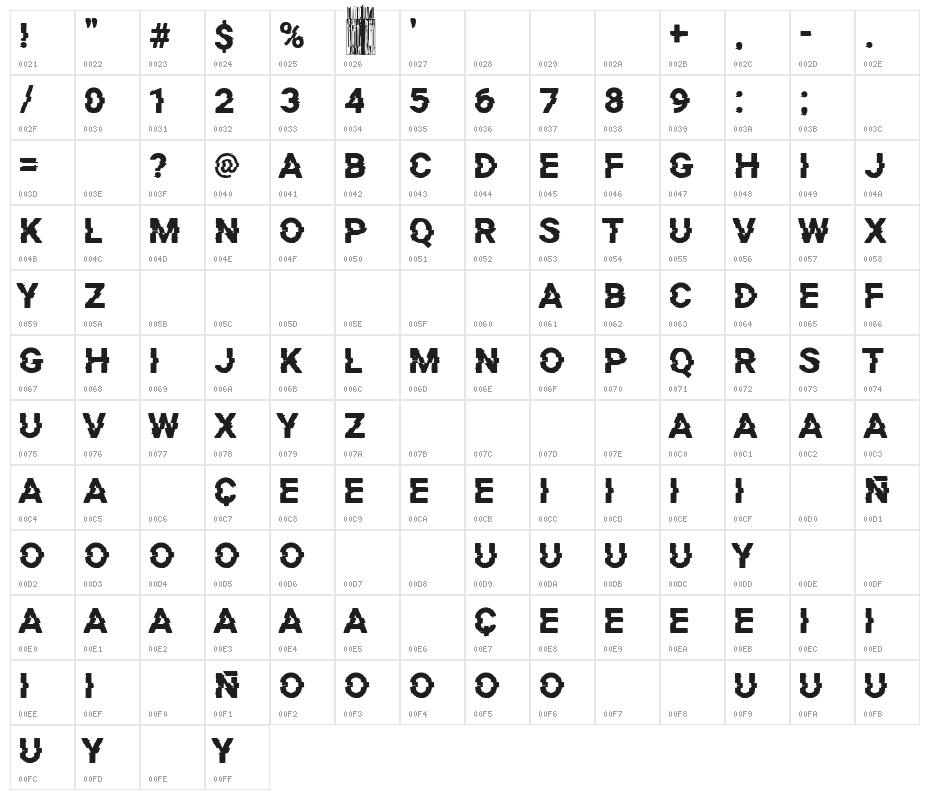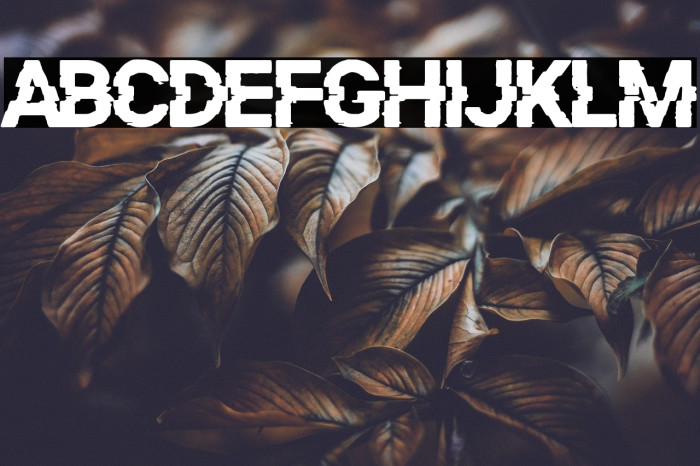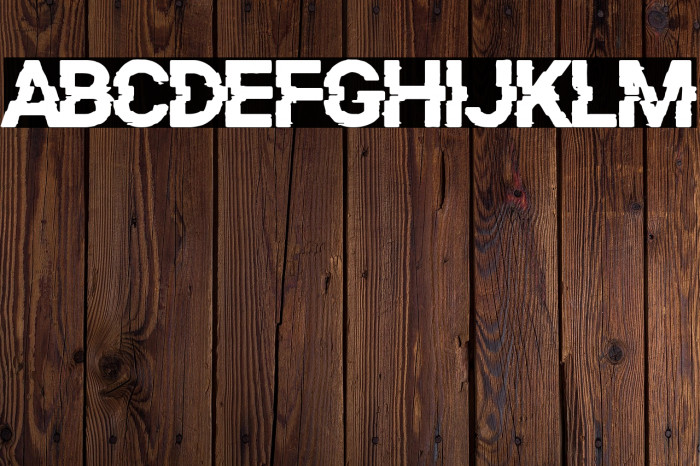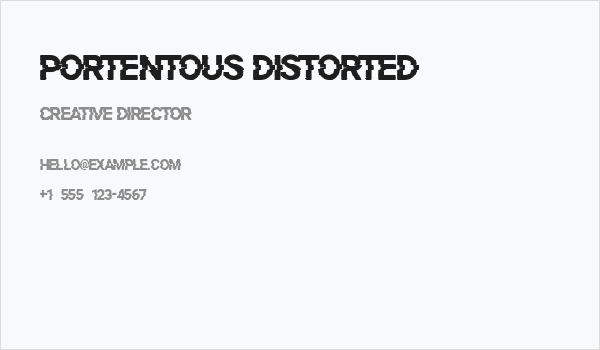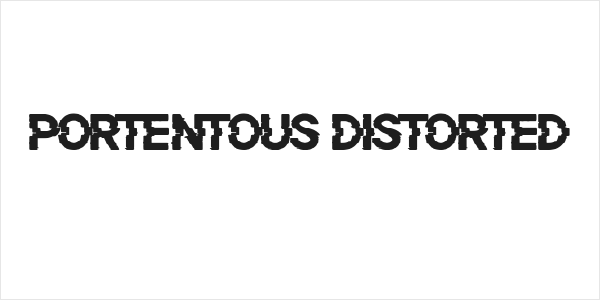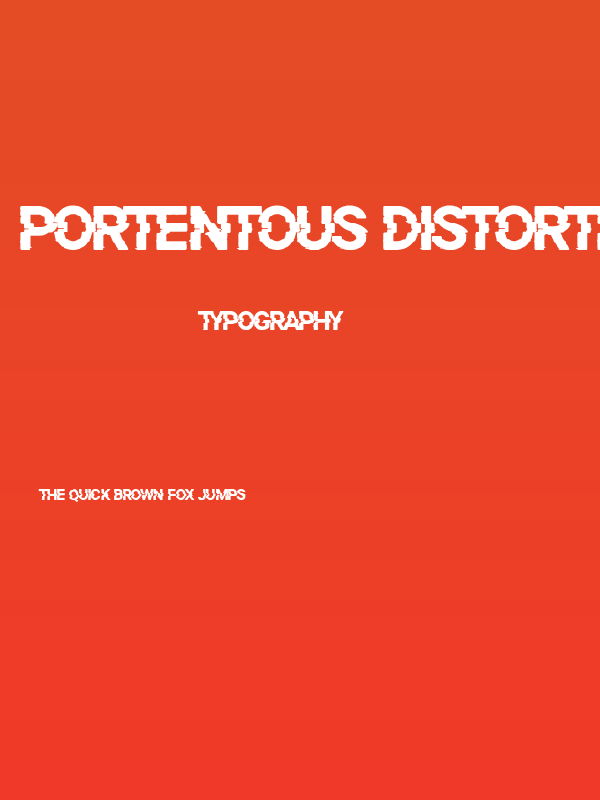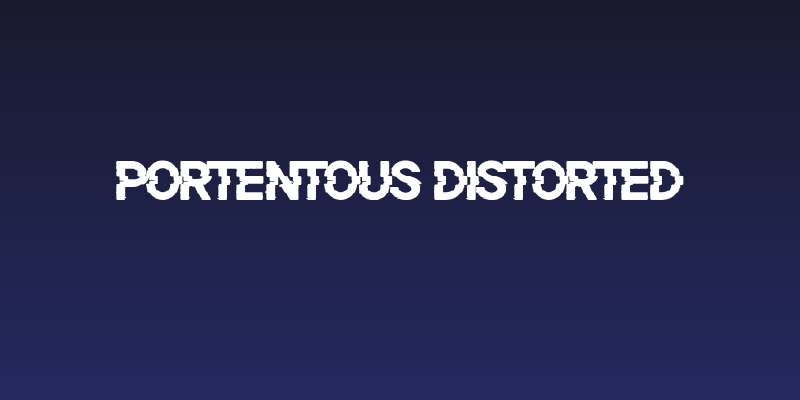
Portentous Distorted Font
Portentous Distorted Description
This font features a bold and distorted style, characterized by its rough, uneven edges and a sense of movement within each character. The uppercase and lowercase letters maintain a consistent height, creating a uniform appearance despite the chaotic design. The numbers and special characters follow the same distorted theme, adding to the overall impact. This font is visually striking and commands attention, making it ideal for projects that require a bold statement.
| Overall Style | Modern, Decorative |
| Proposed Projects | Ideal for album covers, posters, and branding that requires a bold, edgy look. |